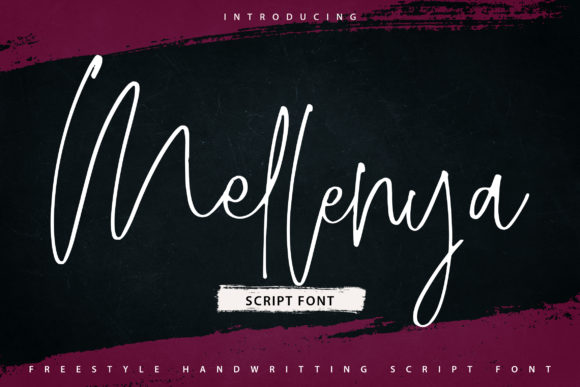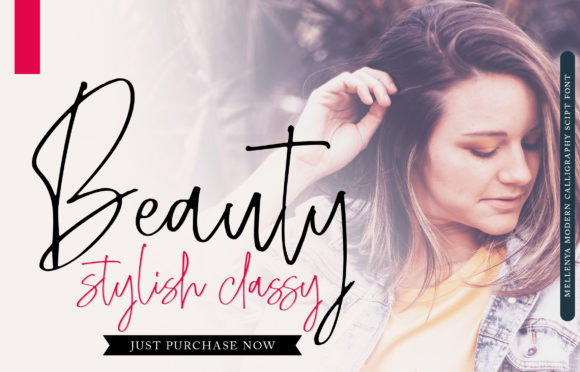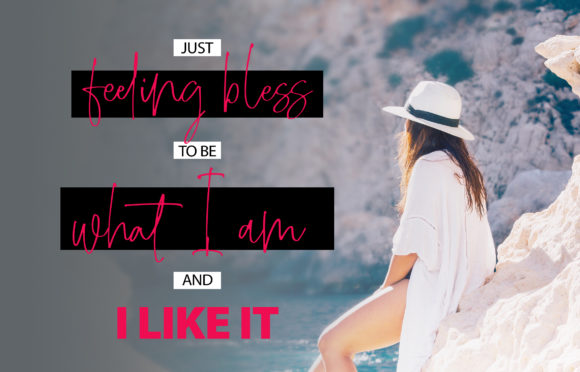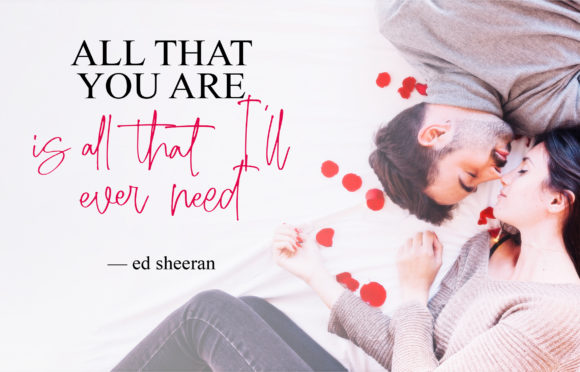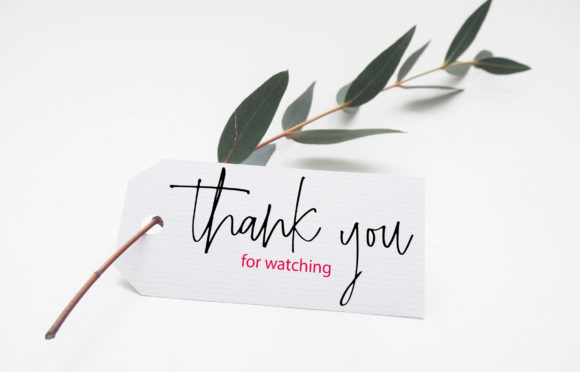
Mellenya Font
About Mellenya Font
Mellenya is a timeless and relaxed handwritten font. Its versatile style makes it fit for both formal and non-formal events. This font is PUA encoded which means you can access all of the glyphs and swashes with ease! It features a varying baseline, smooth lines, gorgeous glyphs and stunning alternates.